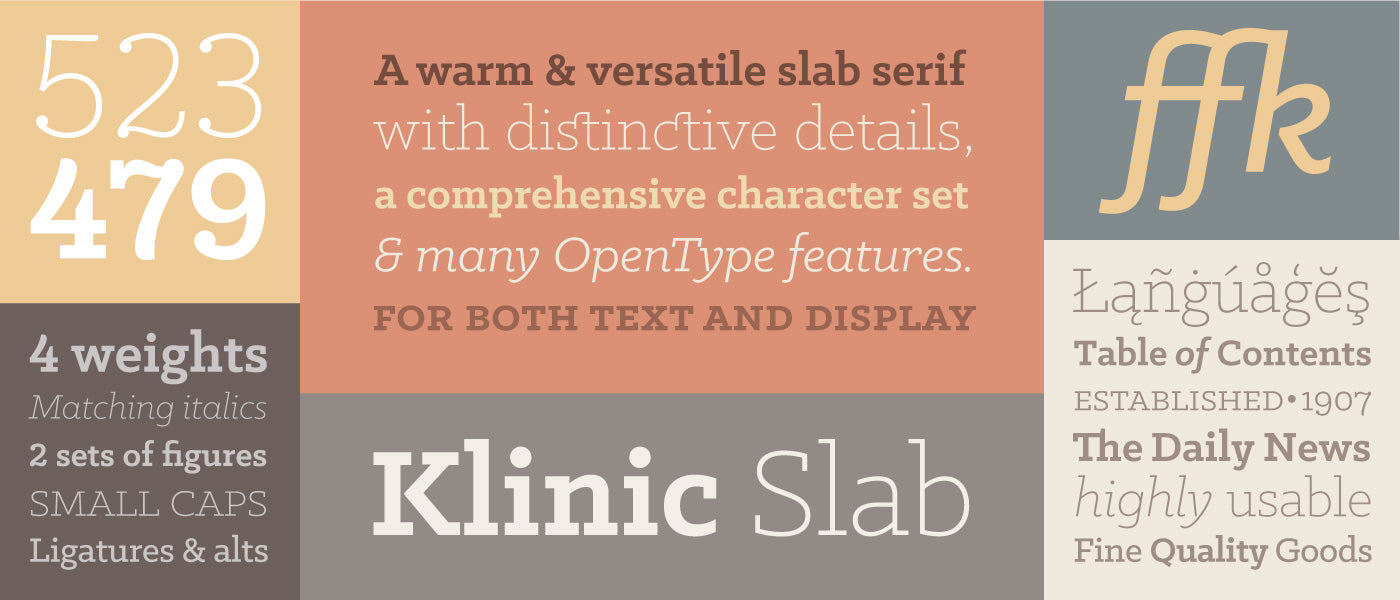
Klinic slab font - free download for any designer that is looking to display their design professionally. Lost Type has created this amazing and beautiful typeface. This is absolutely fancy font so you can easily make world-class designs.